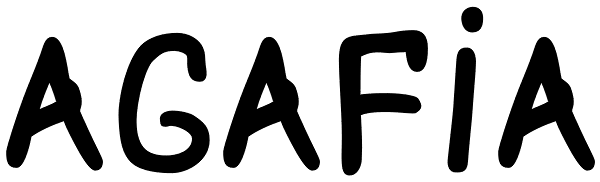
Agafia
Agafia handwriting script is based on the hand of Agafia Karpovna Lykova - the last member of the Old Believer family lived like an hermit in the Khakass taiga. The face is developed for the new book on the history of Lykov's family by Lev...